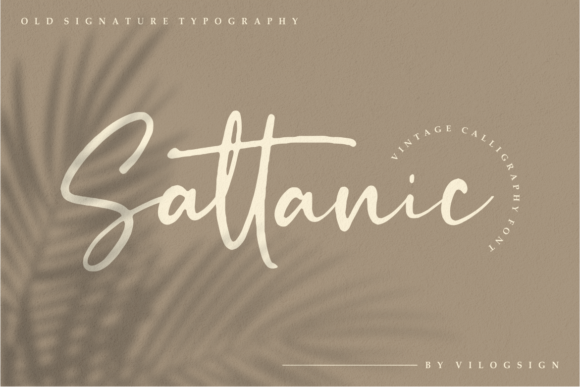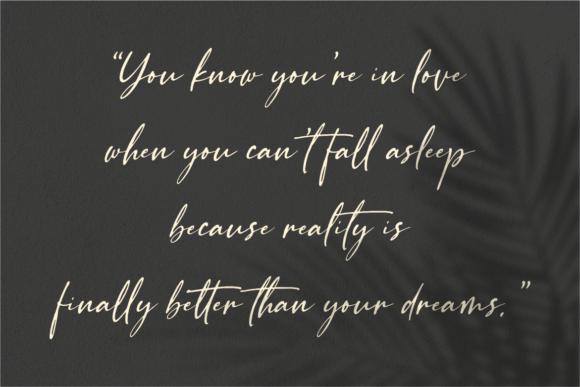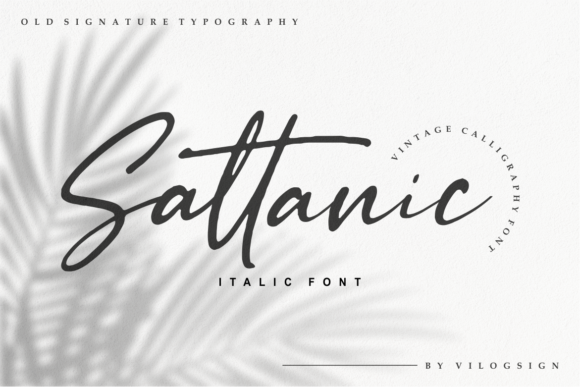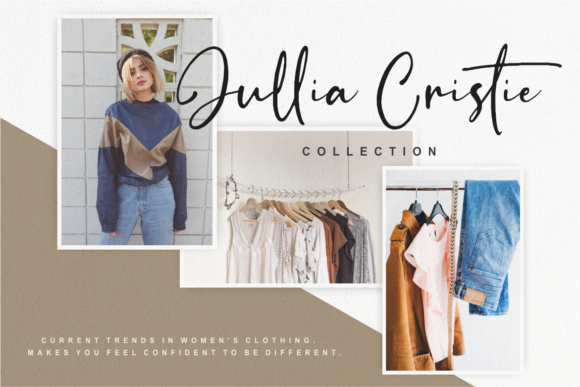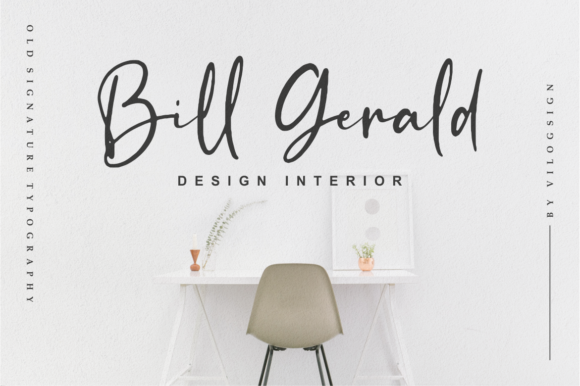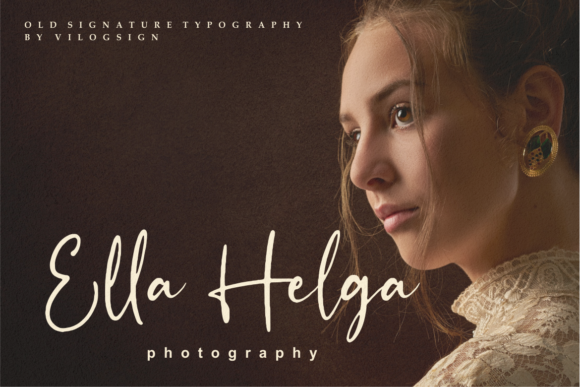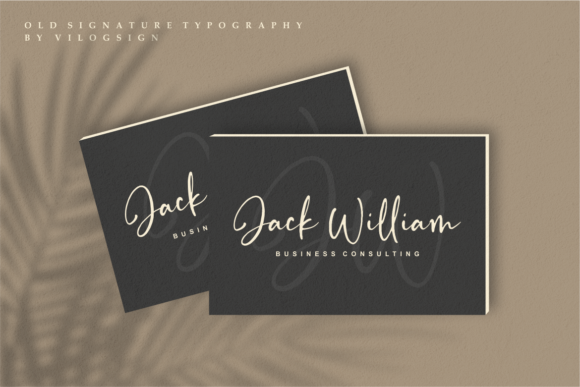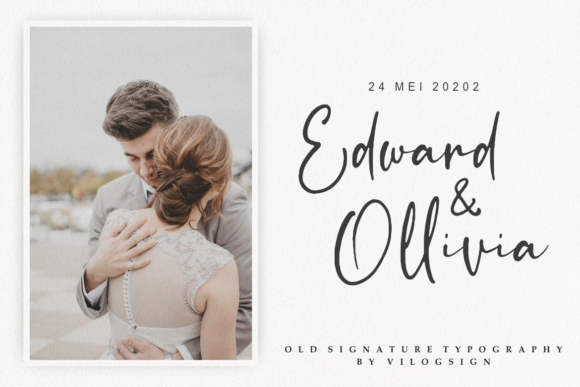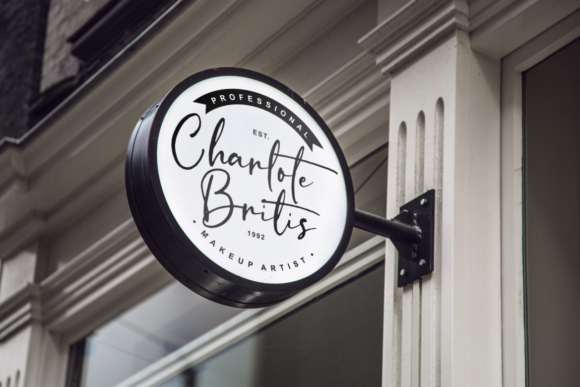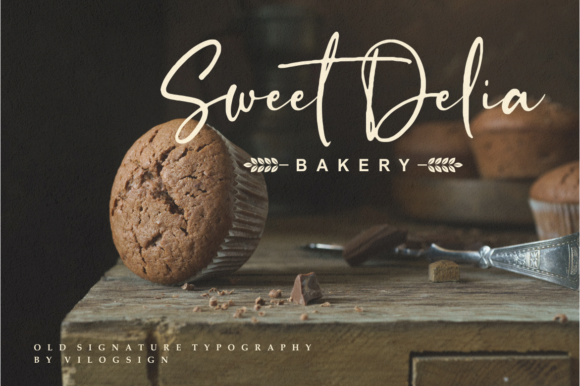
Sattanic Font
About Sattanic Font
Sattanic is a new signature handwritten font. A beautiful vintage script font with alternative and ligatures to complete your needs.
Use this lovely font to give your future projects a hint of modernism and professionalism.